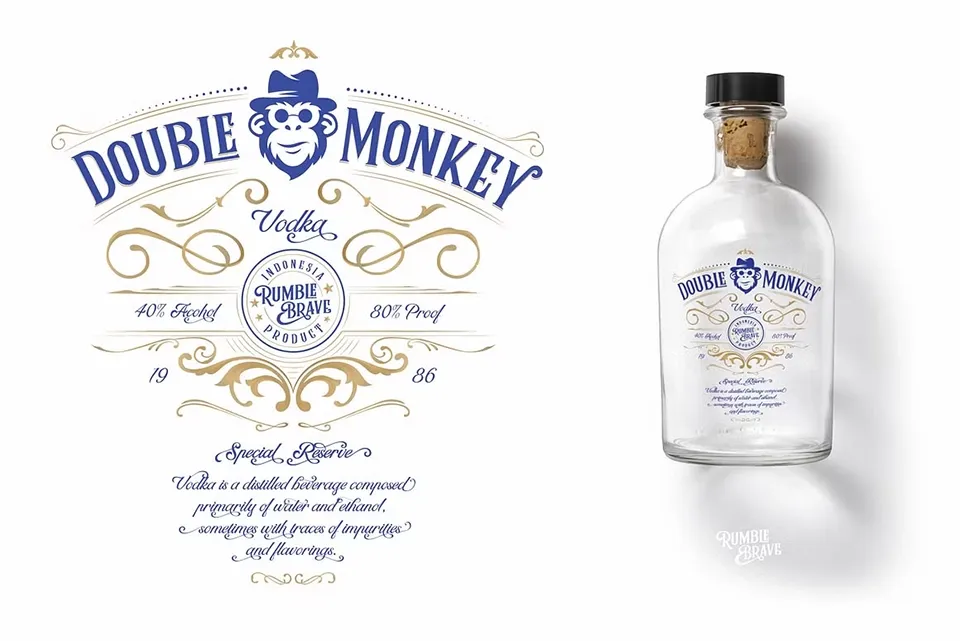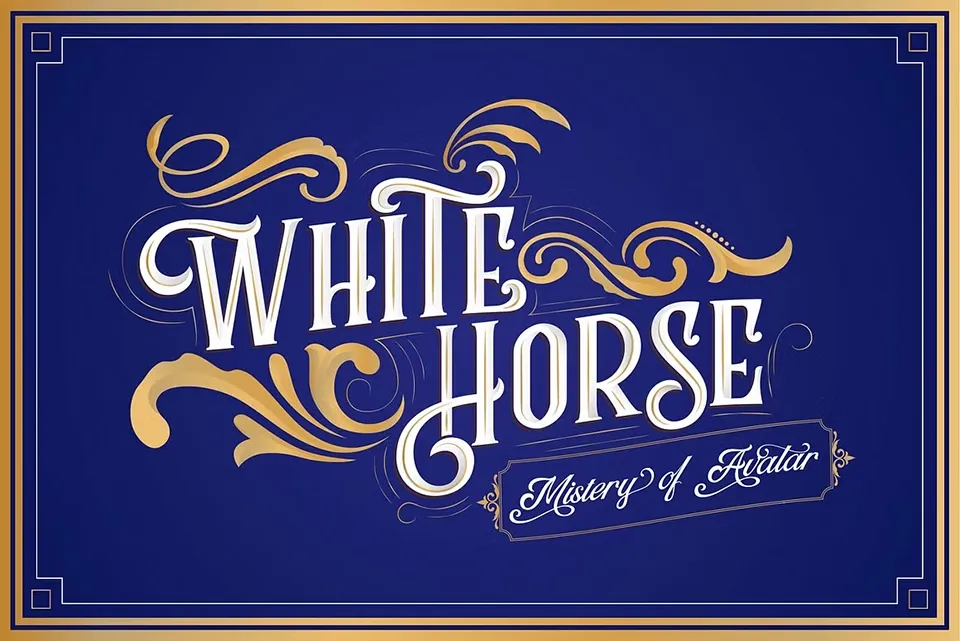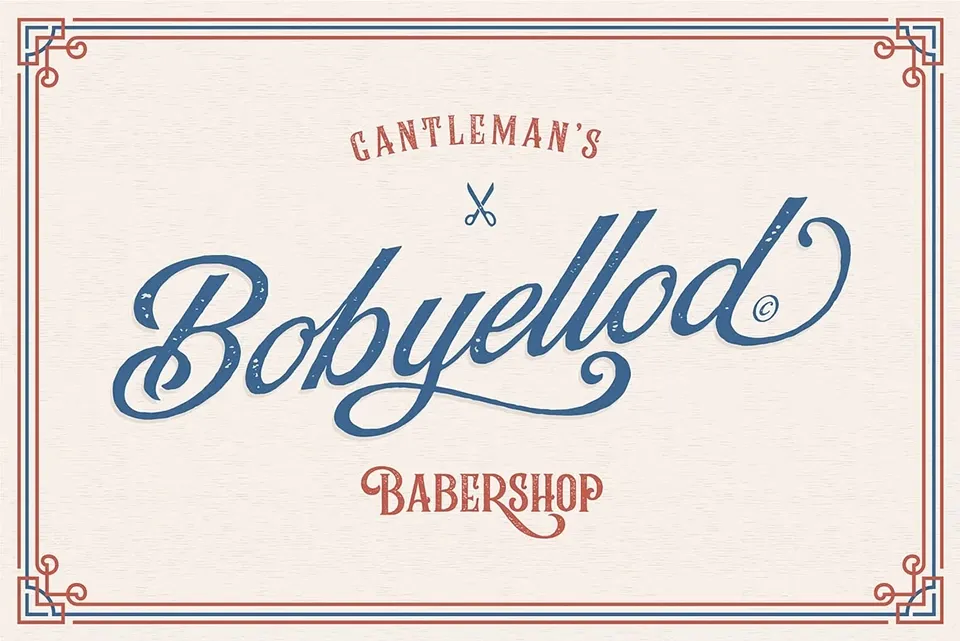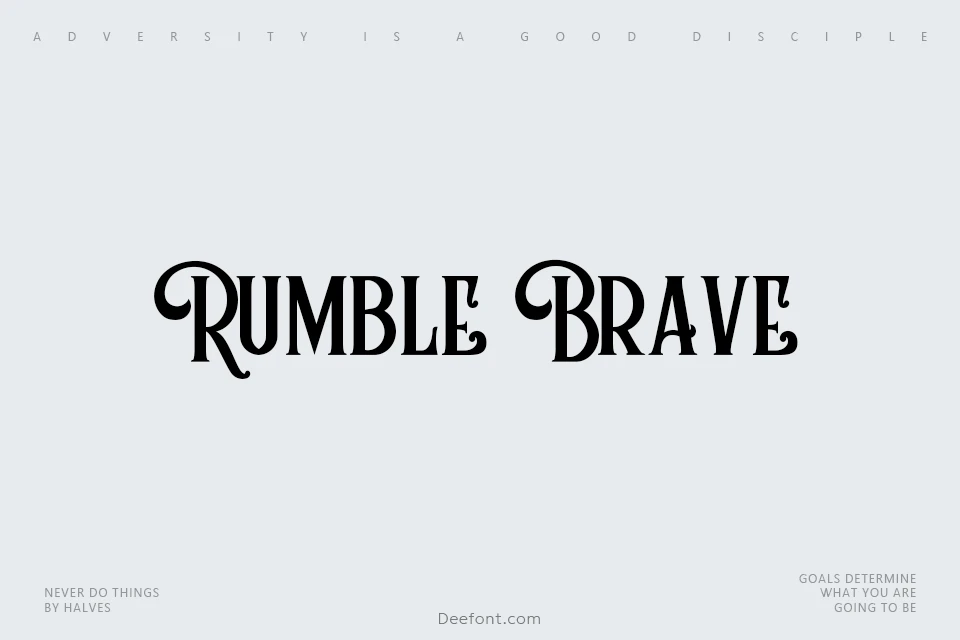
Rumble Brave Font
The Rumble Brave Typeface is a luxurious and vintage-inspired font family created by Alit Design. It features a unique blend of serif, script, and dingbat styles, making it ideal for projects that require a touch of Victorian elegance and classic charm. With over 120 fancy characters, stylistic alternates, swashes, and multilingual support, this typeface is perfect for beverage labels, logotypes, badges, wedding invitations, posters, and more. Its versatility and decorative elements allow designers to craft striking and memorable typography for both personal and commercial projects, provided the appropriate license is obtained.